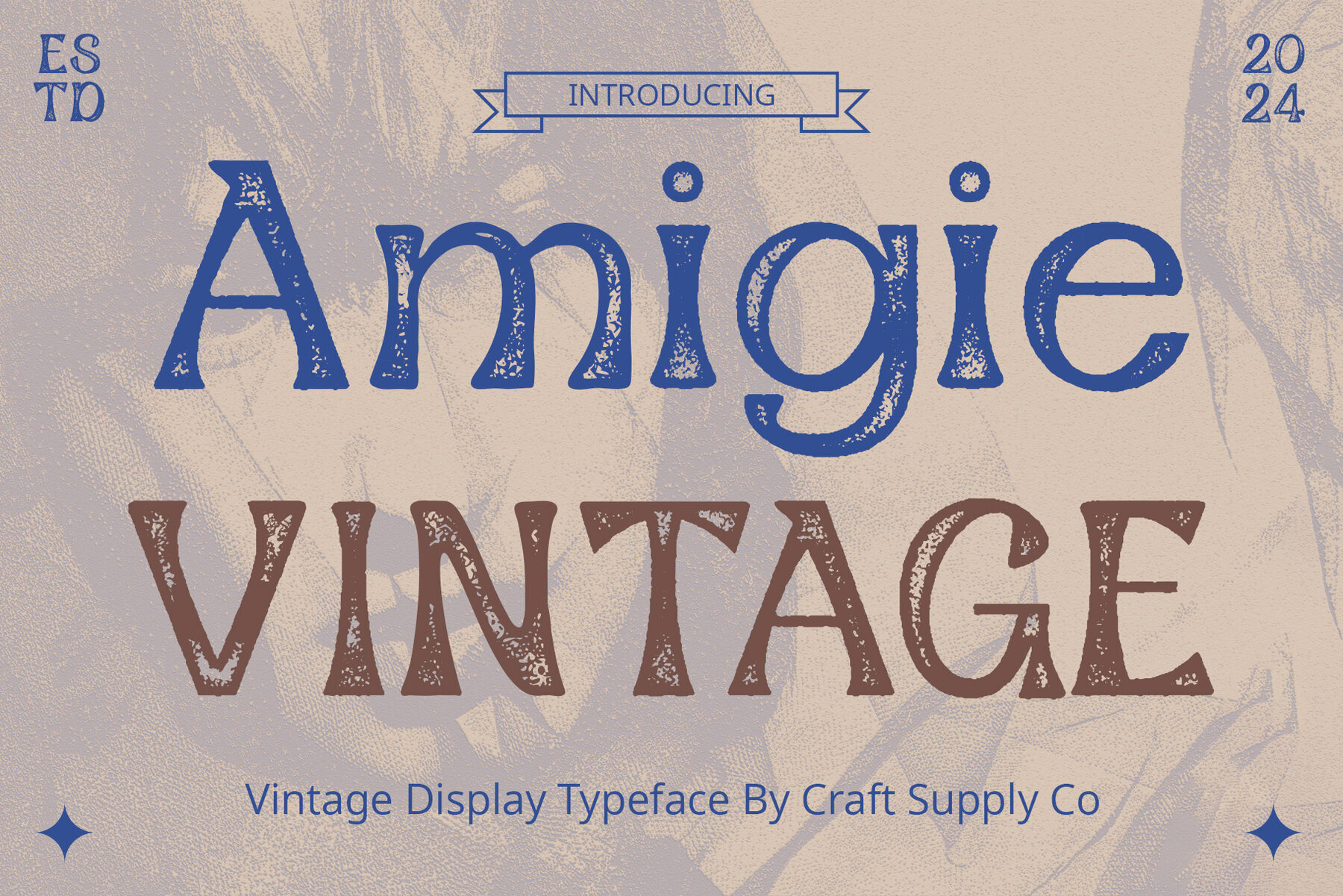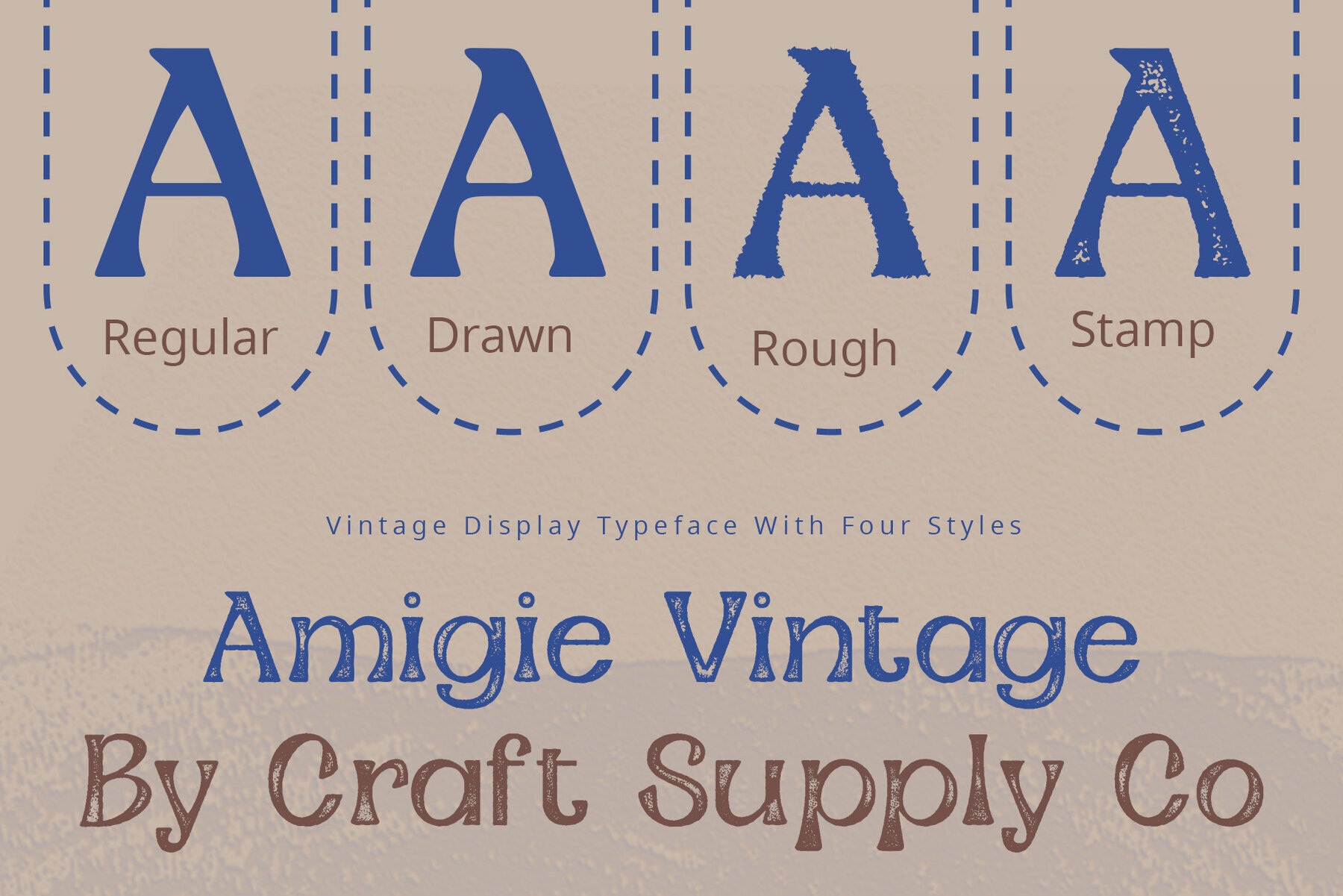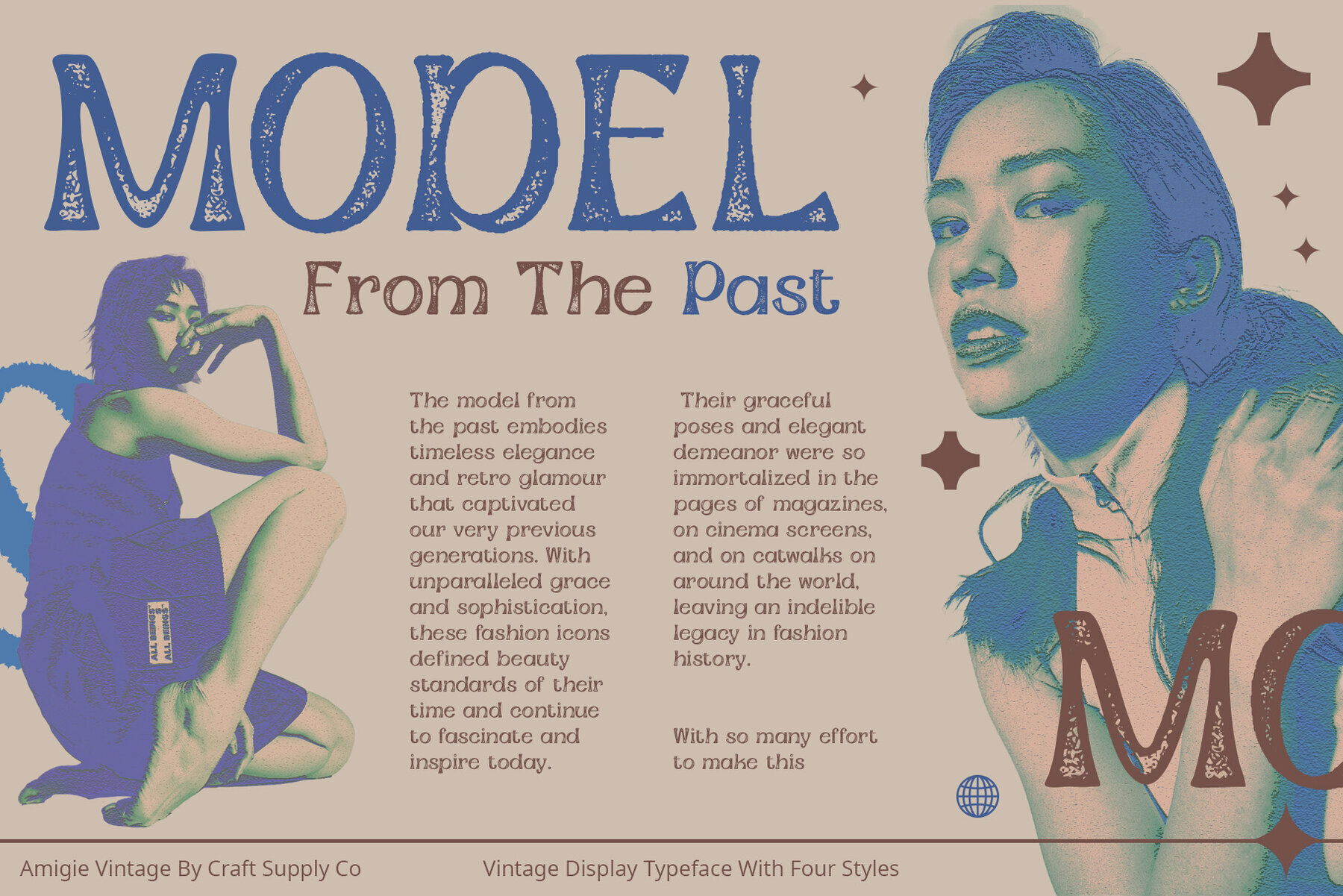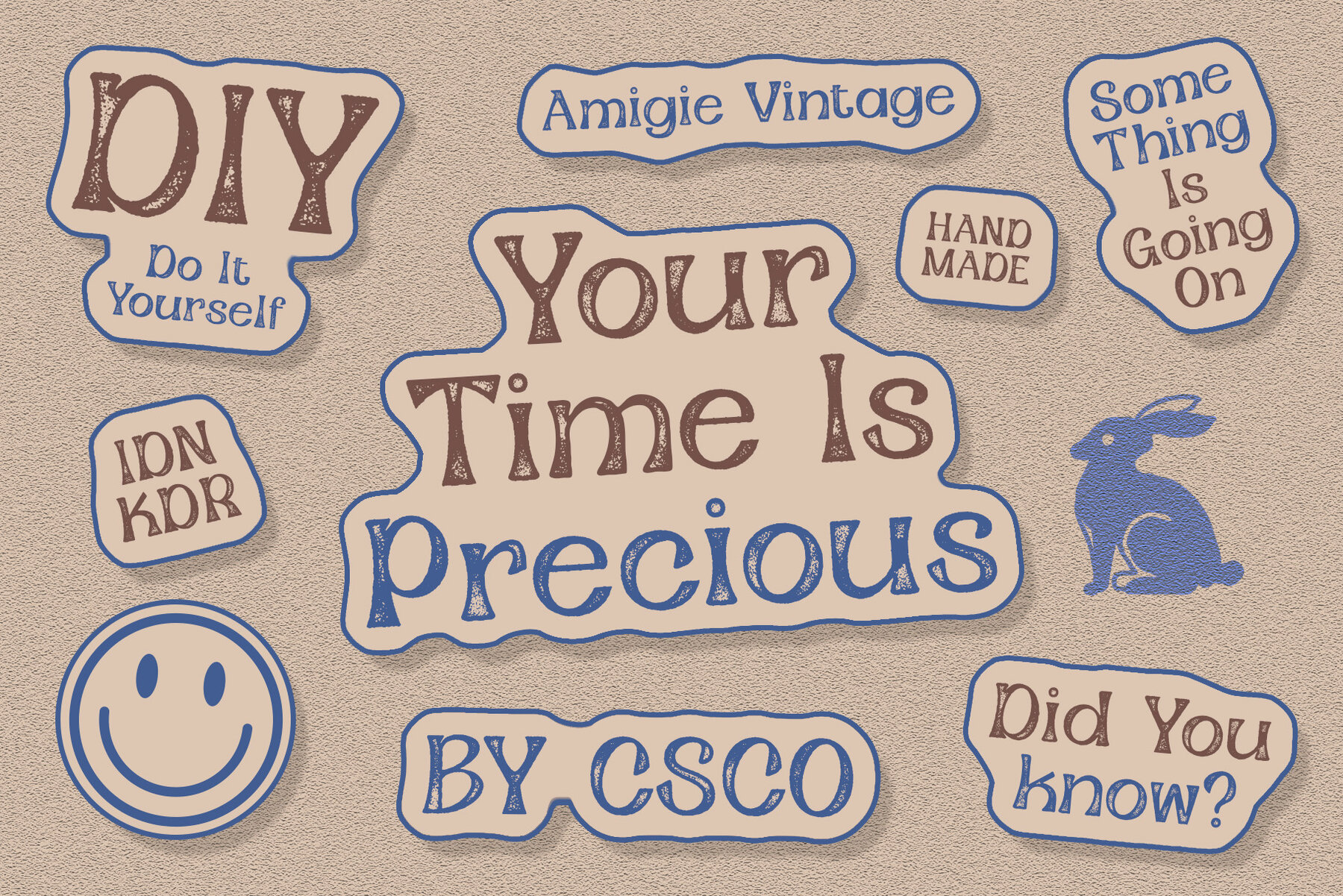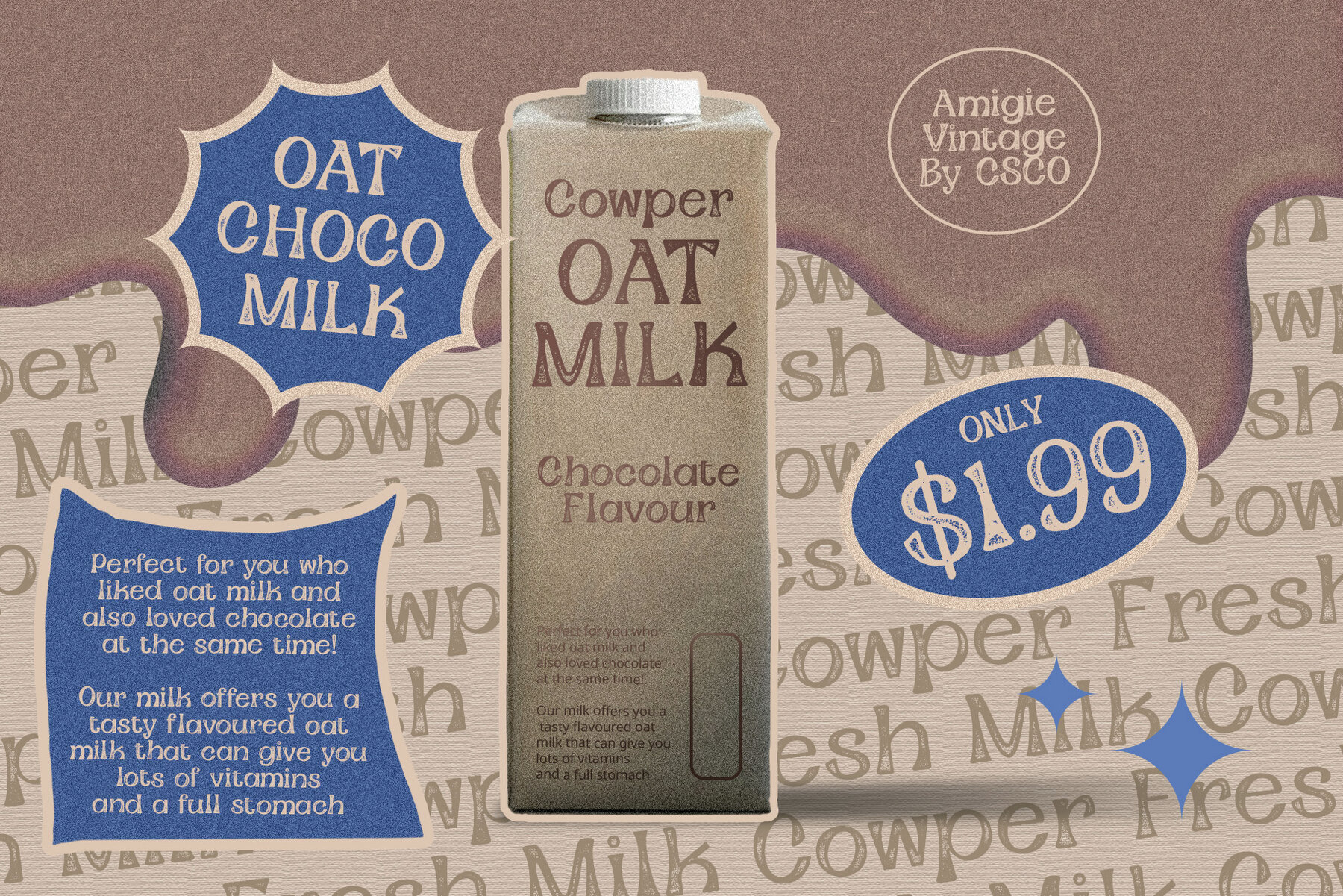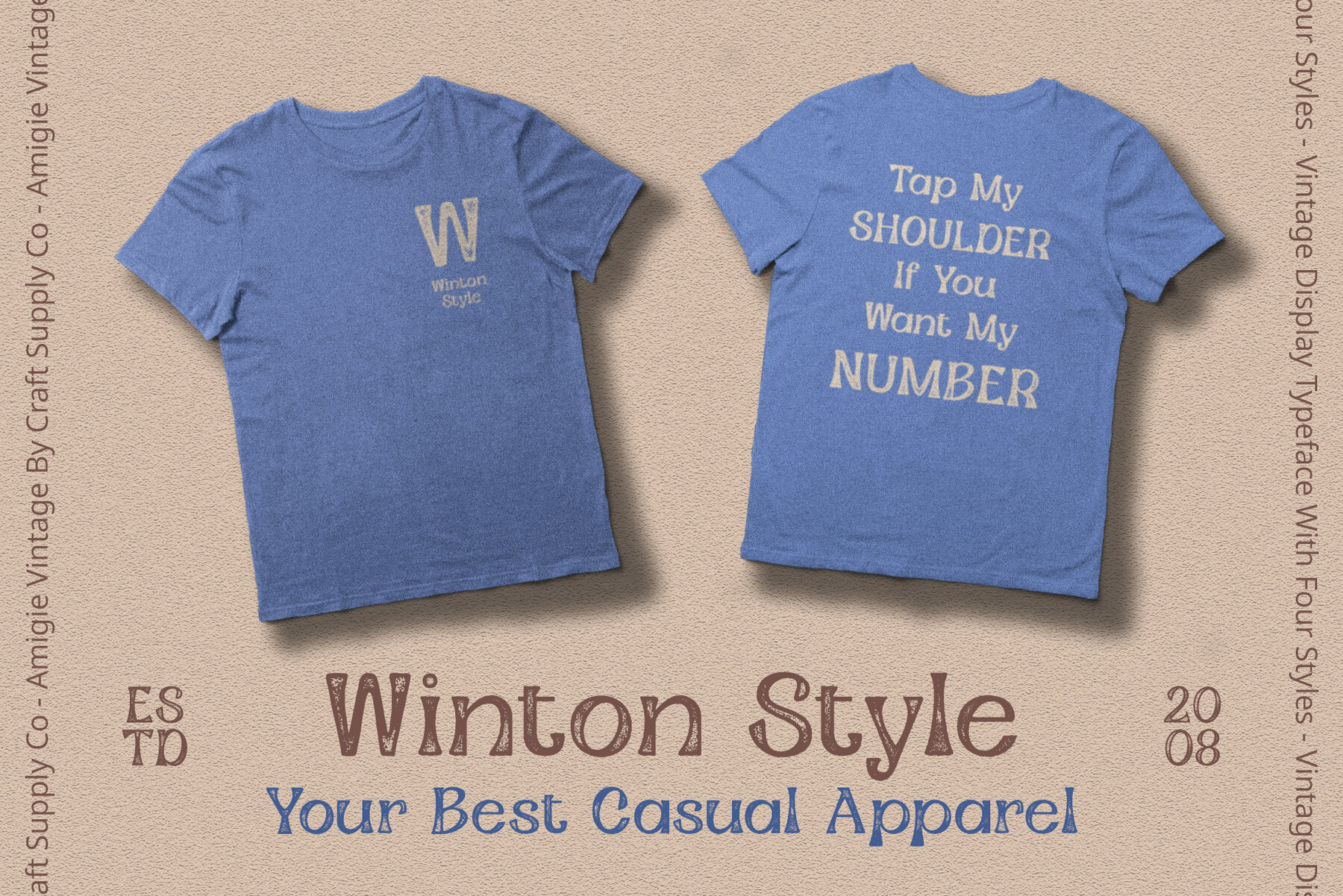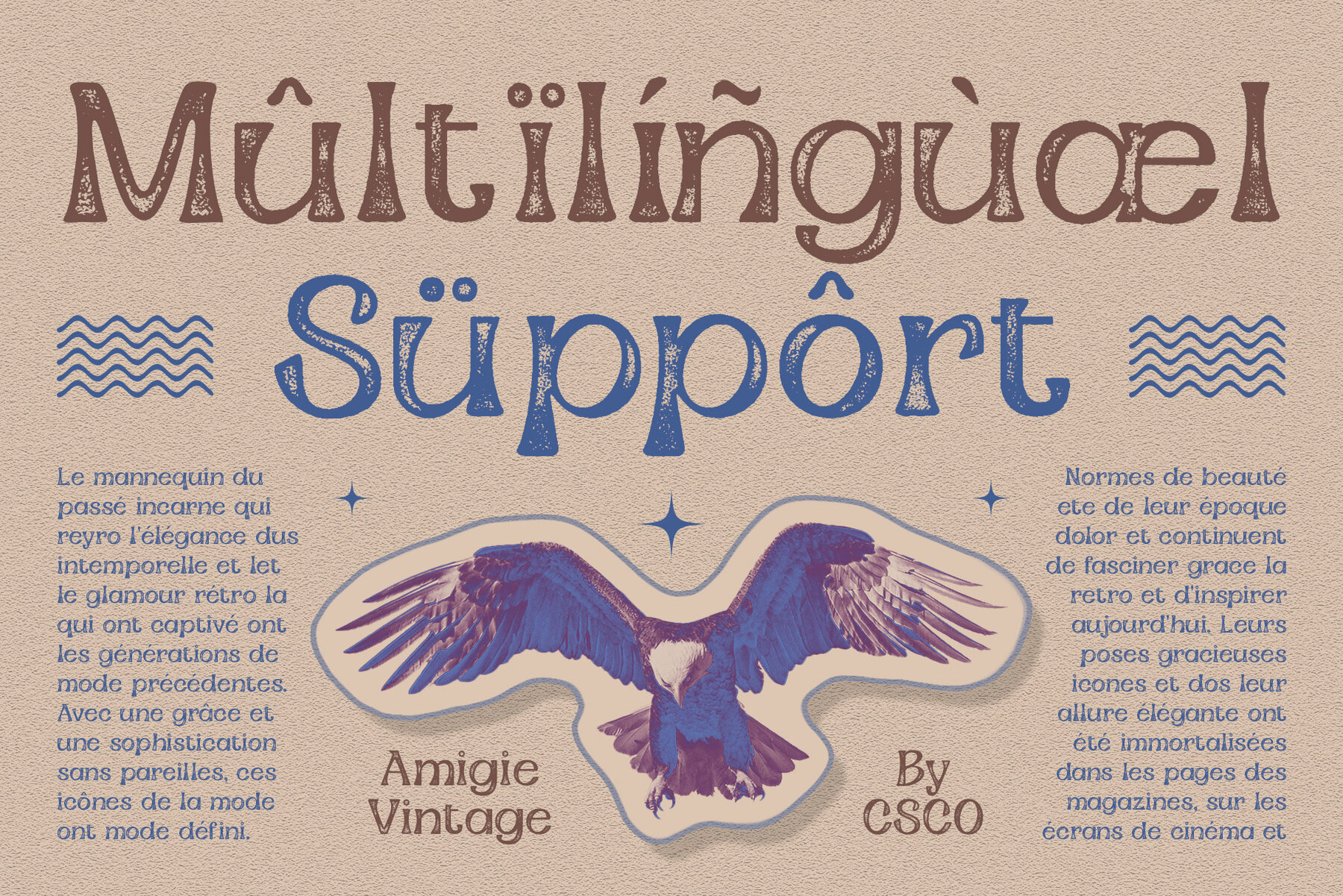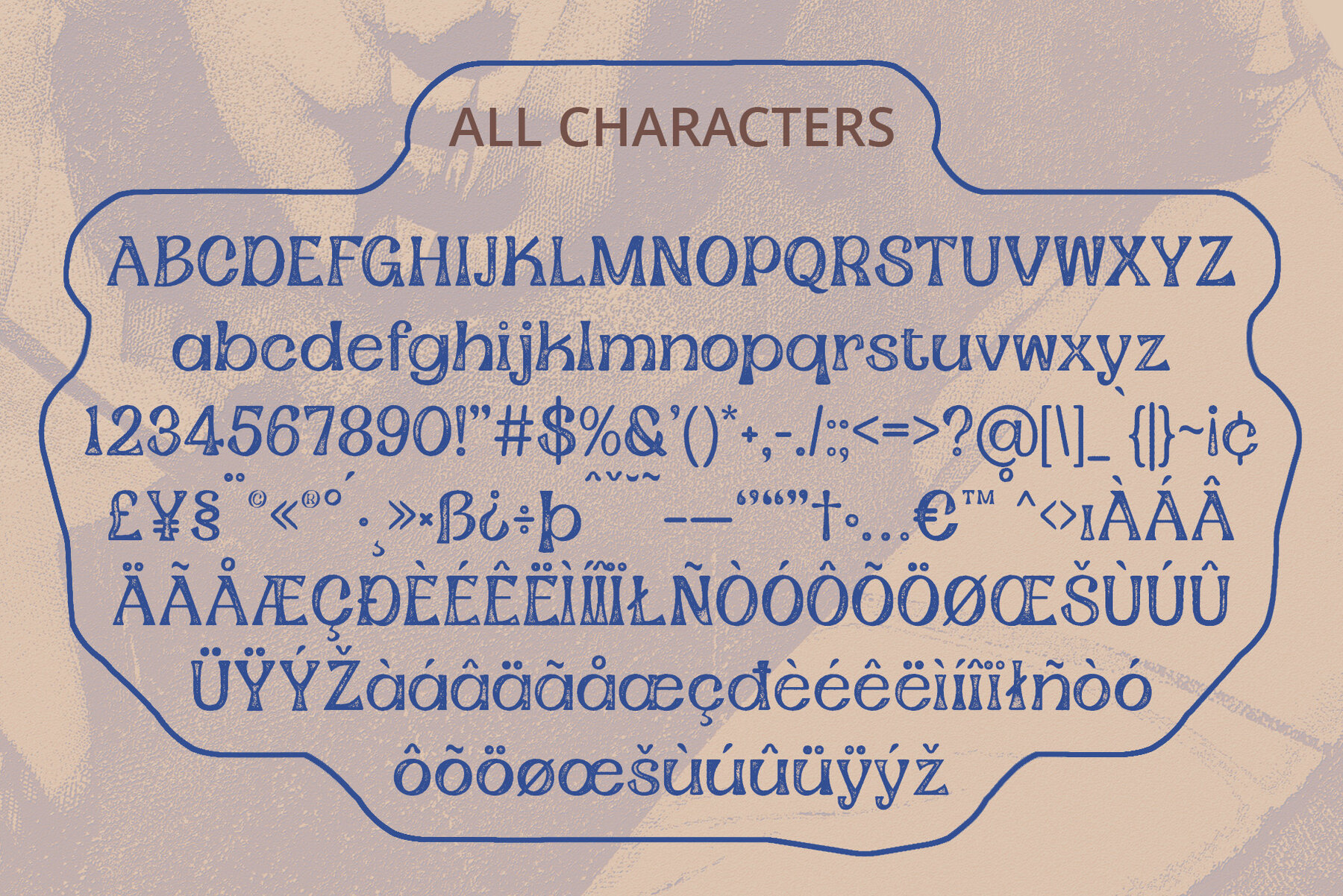
Amigie Vintage Font
Amigie Vintage by Craft Supply Co. offers a timeless blend of classic serif design and unique rough stamp drawn effects, perfect for projects seeking a nostalgic touch. Amigie Vintage features a distinctive serif design characterized by elegantly curved serifs that extend seamlessly from the stems. This classic serif style adds a touch of refinement to any project. The font is imbued with a unique rough stamp drawn effect, lending it a vintage and handcrafted feel. Each character carries the charm of imperfection, reminiscent of traditional printing techniques. With its combination of serif elegance and rough stamp drawn texture, this font exudes a timeless vintage appeal. It evokes nostalgia and authenticity, making it ideal for projects seeking a retro aesthetic. This font is a versatile display font suitable for a wide range of applications. Whether used in branding, packaging, posters, or invitations, its vintage-inspired style adds character and sophistication to any design. This font offers a perfect blend of classic serif design and vintage-inspired rough stamp drawn texture. Its elegant curves and authentic vintage appeal make it a standout choice for designers looking to infuse their projects with timeless charm and character. No specialized software is needed to utilize this typeface.Amigie Vintage: Embracing Vintage Elegance
Classic Serif Design
Rough Stamp Drawn Effect
Vintage Appeal
Versatile Display Font
Timeless Elegance with a Vintage Twist